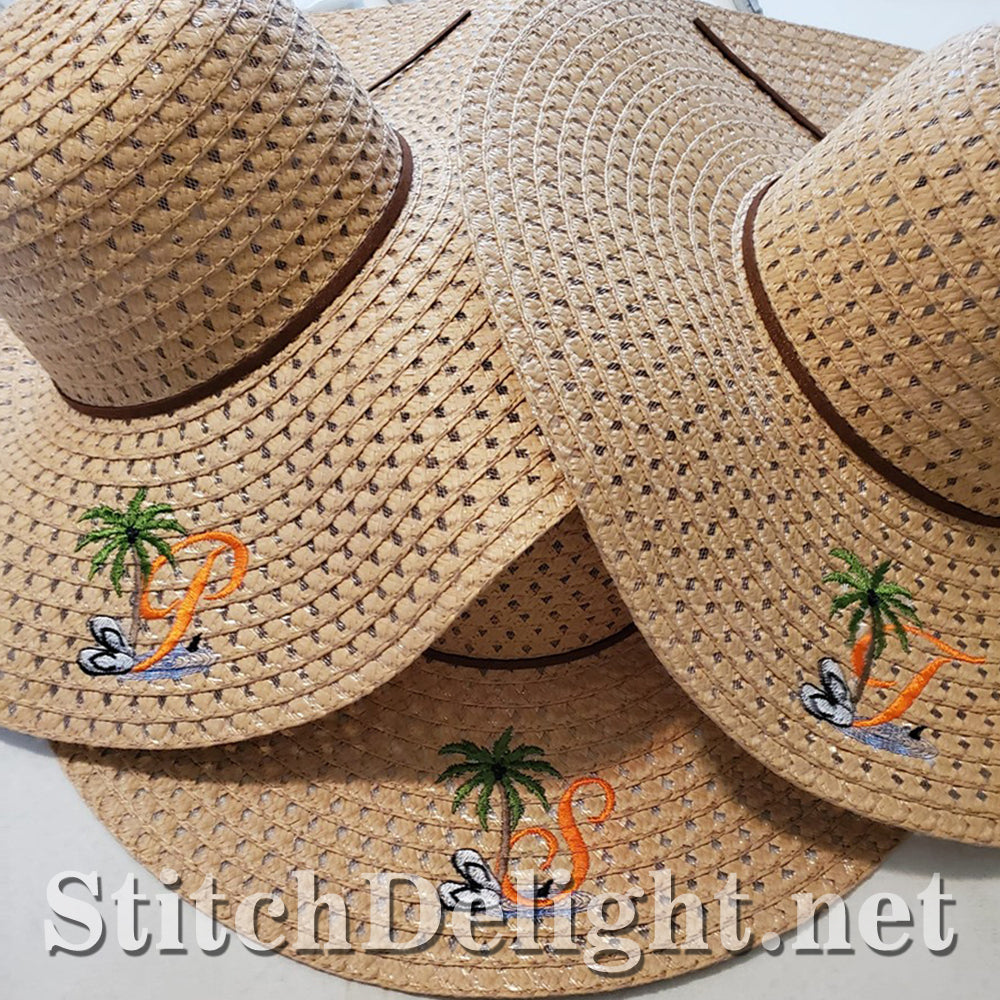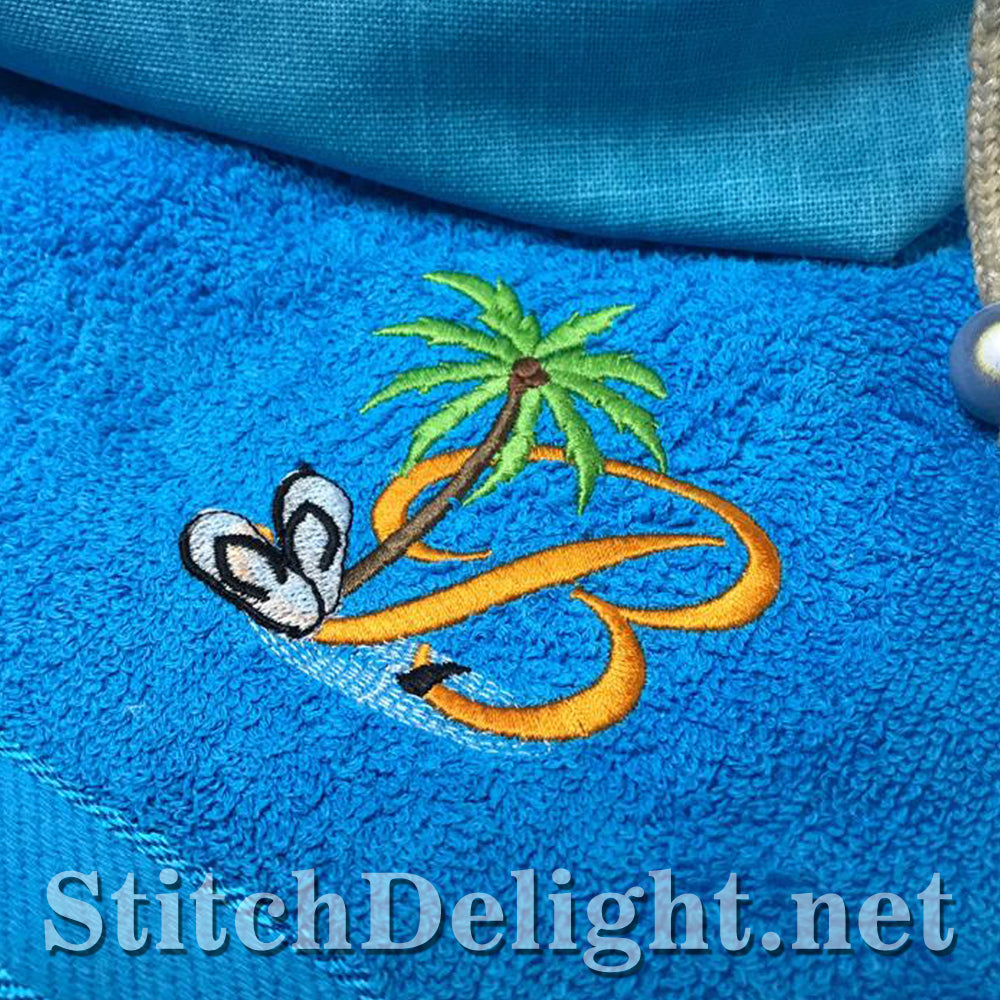
HOE0005 Relax a Bit Font
Attention all beach lovers out there, this set is for you. This complete alphabet set has an average height of 3inch and will make a perfect addition on beach towels and tote bags. Make use of the matching font (HOE0003) to write any name.